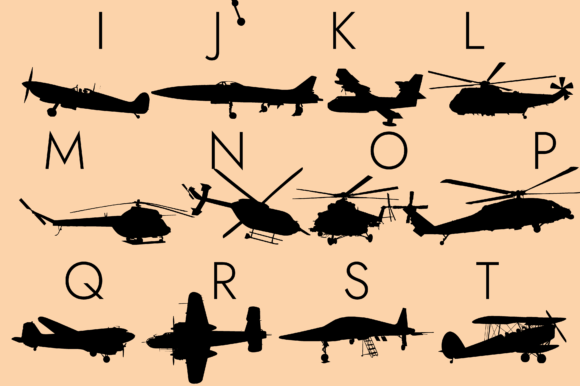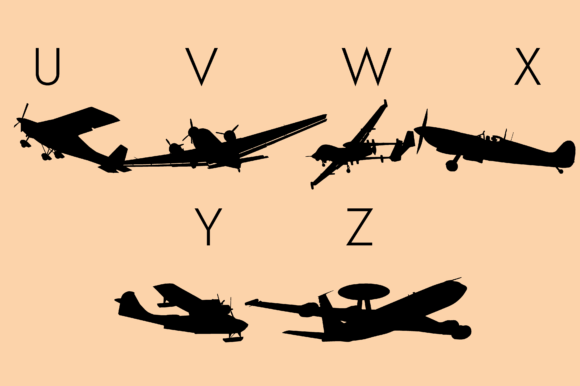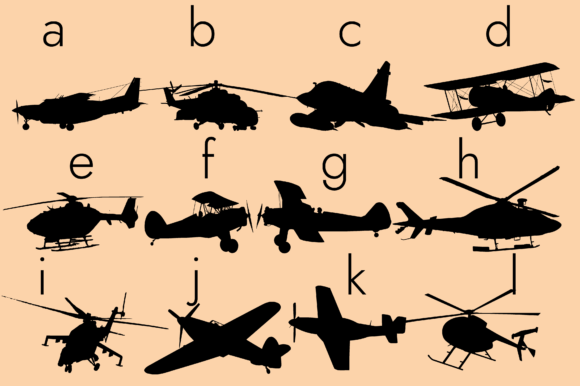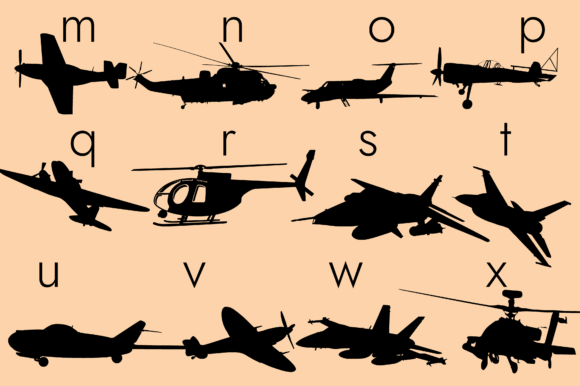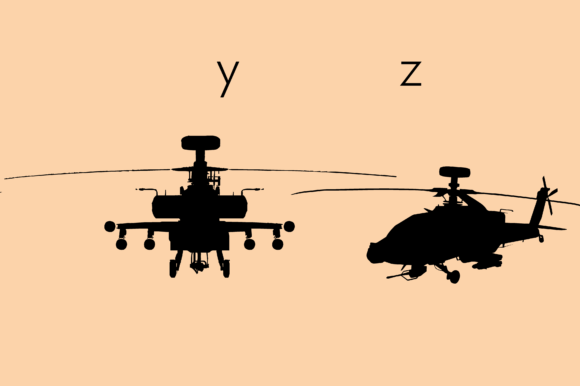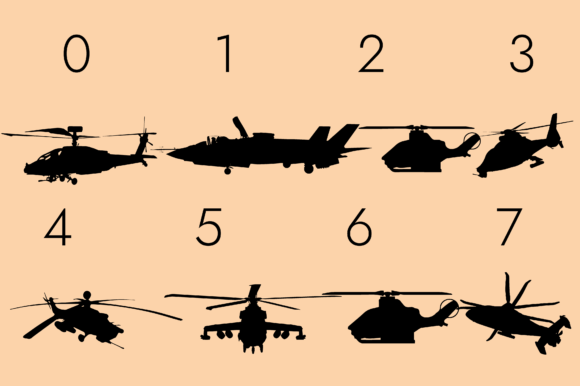
Aircrafts Silhouettes Font: Elevate Your Designs with Unique Aircraft Silhouettes
Are you a designer, crafter, or enthusiast looking for a creative way to add a touch of aviation flair to your projects? Look no further than the Aircrafts Silhouettes Font, a specially designed dingbats font that lets you generate stunning aircraft silhouettes with ease. In this article, we’ll explore the features and benefits of this versatile font, and show you how to make the most of it in your designs.
What is Aircrafts Silhouettes Font?
Aircrafts Silhouettes Font is a unique dingbats font that features a collection of aircraft silhouettes, carefully crafted to provide a wide range of design possibilities. With this font, you can add a professional and sleek touch to your aircraft-related projects, from graphic designs and logos to crafts and DIY projects.
Key Features of Aircrafts Silhouettes Font
- Wide range of aircraft silhouettes: The font includes a diverse collection of aircraft silhouettes, from commercial airliners to military jets, and from vintage biplanes to modern spacecraft.
- Easily scalable: The font is designed to be highly scalable, ensuring that your designs look great in any size or resolution.
- Vector-based: As a vector-based font, Aircrafts Silhouettes Font can be easily edited and manipulated using graphic design software.
Benefits of Using Aircrafts Silhouettes Font
So why choose Aircrafts Silhouettes Font for your designs? Here are just a few benefits:
- Add a professional touch: With Aircrafts Silhouettes Font, you can add a professional and sleek touch to your designs, perfect for creating logos, icons, and graphics.
- Save time and effort: The font’s extensive collection of aircraft silhouettes saves you time and effort, eliminating the need to create your own designs from scratch.
- Enhance creativity: The font’s unique and diverse collection of aircraft silhouettes inspires creativity and imagination, helping you to come up with fresh and innovative design ideas.
- Perfect for crafters and DIY enthusiasts: Aircrafts Silhouettes Font is also perfect for crafters and DIY enthusiasts, providing a fun and creative way to add a personal touch to your projects.
Aircrafts Silhouettes Font is a versatile and creative dingbats font that offers a wide range of design possibilities. Whether you’re a designer, crafter, or enthusiast, this font provides a unique and professional way to add aircraft silhouettes to your projects. With its ease of use, scalability, and compatibility with popular design software, Aircrafts Silhouettes Font is the perfect choice for anyone looking to elevate their designs and add a touch of aviation flair.